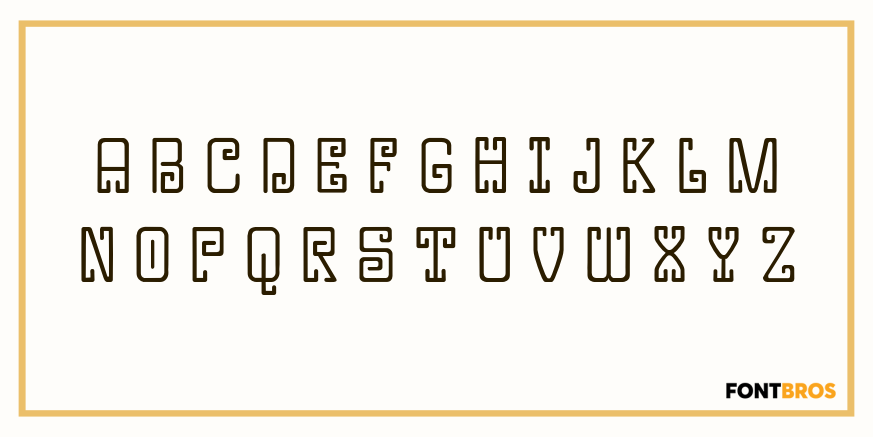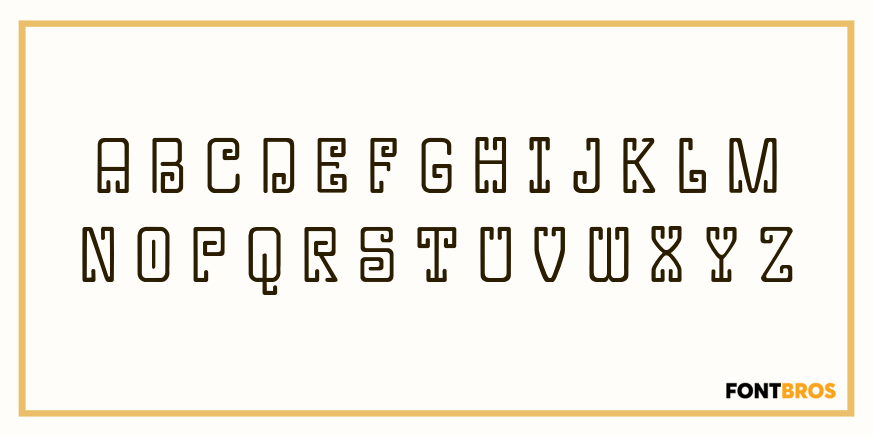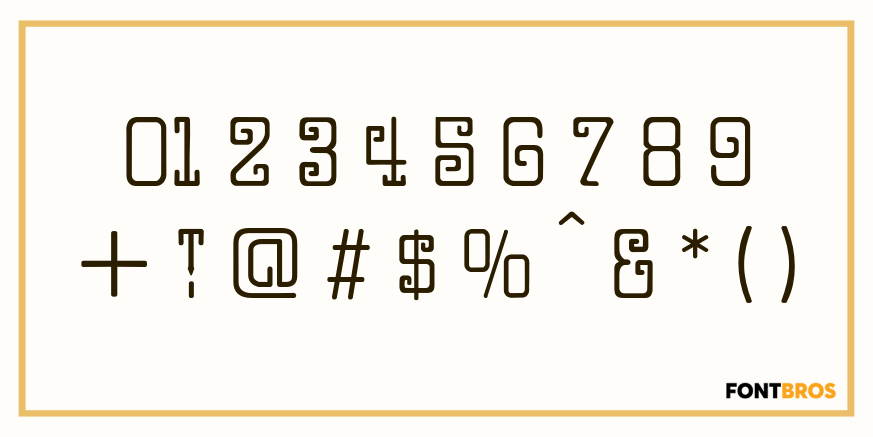
Lady Cleo
This started out to be a font with an Egyptian hieroglyphic look, but took a detour just beyond the first pyramid.
A young lady we know said many of the letters reminded her of the hooks on a bra strap.
Whatever.
Lady Cleo includes 254 glyphs.
Lady Cleo by Solotype